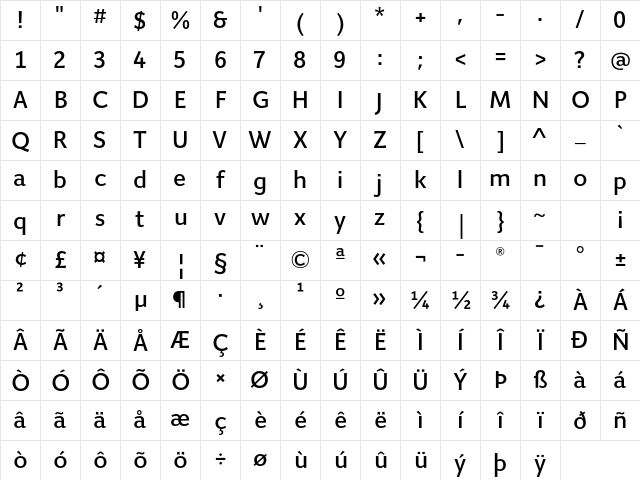
Complete Giacomo MD Medium glyph index. Displaying only characters natively supported by Giacomo MD Medium font.
Giacomo MD is a composed and adaptable typeface that performs quietly and consistently across a wide range of design contexts.